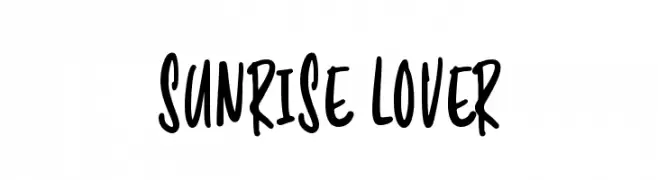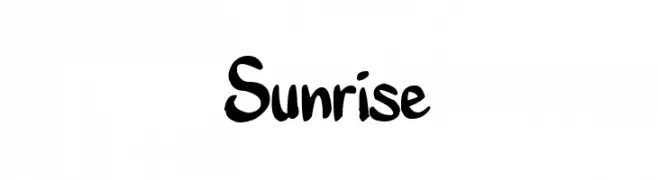
A casual, handwritten font with a playful and informal style.
A playful, decorative font with characters enclosed in circular borders.
A bold, italicized font with a futuristic, three-dimensional design.
A tall, narrow, and geometric font with a modern, architectural style.
A bold, italic, and condensed font with a modern, angular style.
A futuristic, italicized font with angular and dynamic letterforms.
A modern, rounded font with a playful geometric style.
A bold, geometric outlined font with a modern and minimalistic style.
A bold, 3D font with a striped pattern and shadow effect, creating a dynamic and playful look.
A bold, striped decorative font with a modern and playful style.
A bold, angular font with a geometric and modern design.
A playful handwritten font with smooth, rounded strokes and a casual style.
A classic serif typeface with elegant strokes and moderate contrast.
A bold, playful font with rounded edges and a hand-drawn feel.
A dynamic, handwritten font with fluid strokes and lively contrast.
A playful, handwritten font with a casual and organic style.
A playful, handwritten font with rounded characters and a casual style.
A modern, geometric font with a keyboard-like appearance, ideal for digital interfaces.
A modern, rounded font with a playful and approachable style.
A modern, playful font with tall, narrow characters and a monoline appearance.
A bold, distressed font with an eroded, organic appearance.
A bold, brushstroke font with an edgy, hand-painted appearance.
A bold, rounded font with a futuristic and geometric style.
A bold, modern font with rounded edges and a futuristic look.